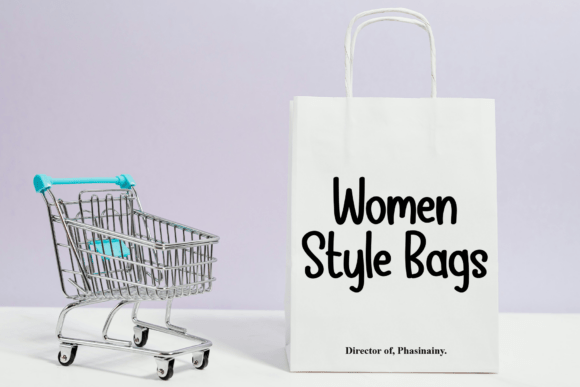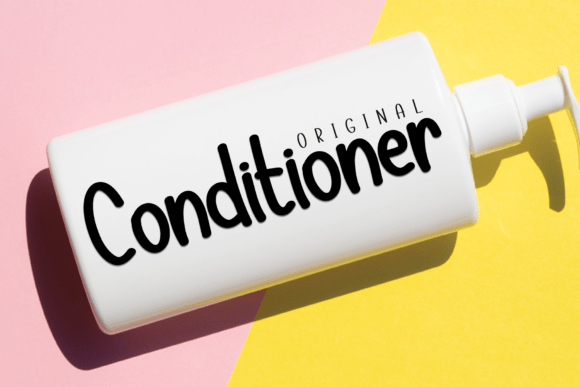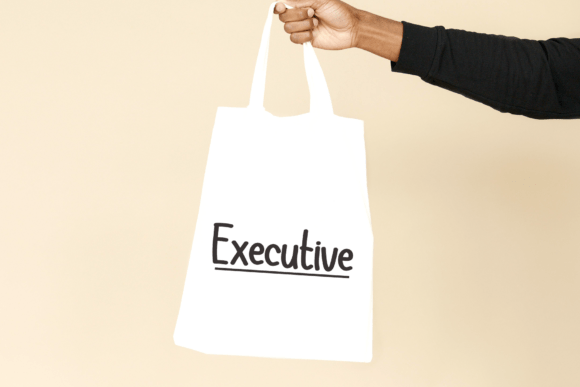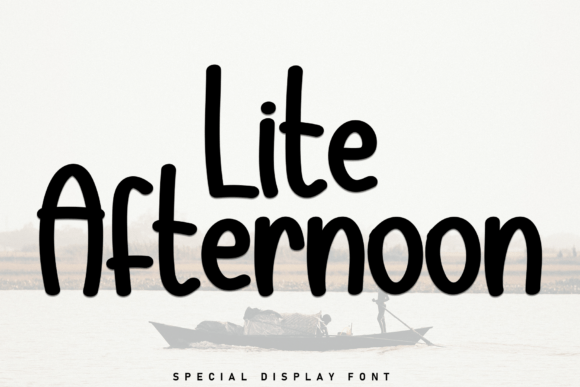
Introduction to Lite Afternoon Font
Lite Afternoon is a neat and casual handwritten font that brings a personal, friendly touch to any design.
With smooth strokes, subtle irregularities, and a natural flow, it captures the charm of real handwriting while maintaining clarity and balance Perfect for quotes, journals, logos, and social media graphics, it adds warmth and authenticity without sacrificing readability.
Key Features of Lite Afternoon Font
Why Choose Lite Afternoon Font?
Lite Afternoon Font offers exceptional quality and versatility, making it a valuable addition to your design toolkit. Whether you’re creating for personal projects or commercial use, Lite Afternoon Font delivers professional results.